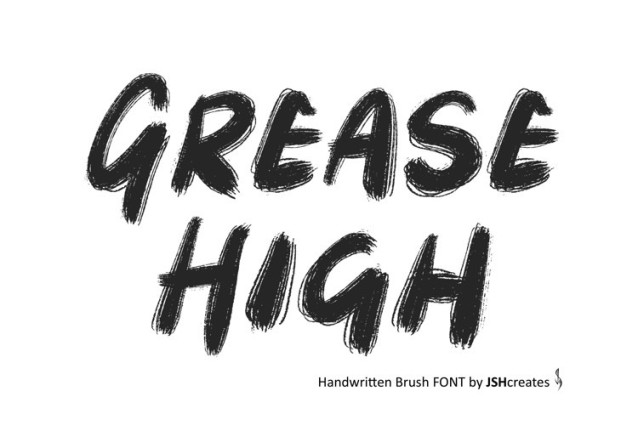
Grease High Font
Grease High Font Perfect for advertising and display purposes, including banners, book covers, shirts, posters, logos and much more!
This is an ALL CAPS font, including numbers, characters and punctuation.